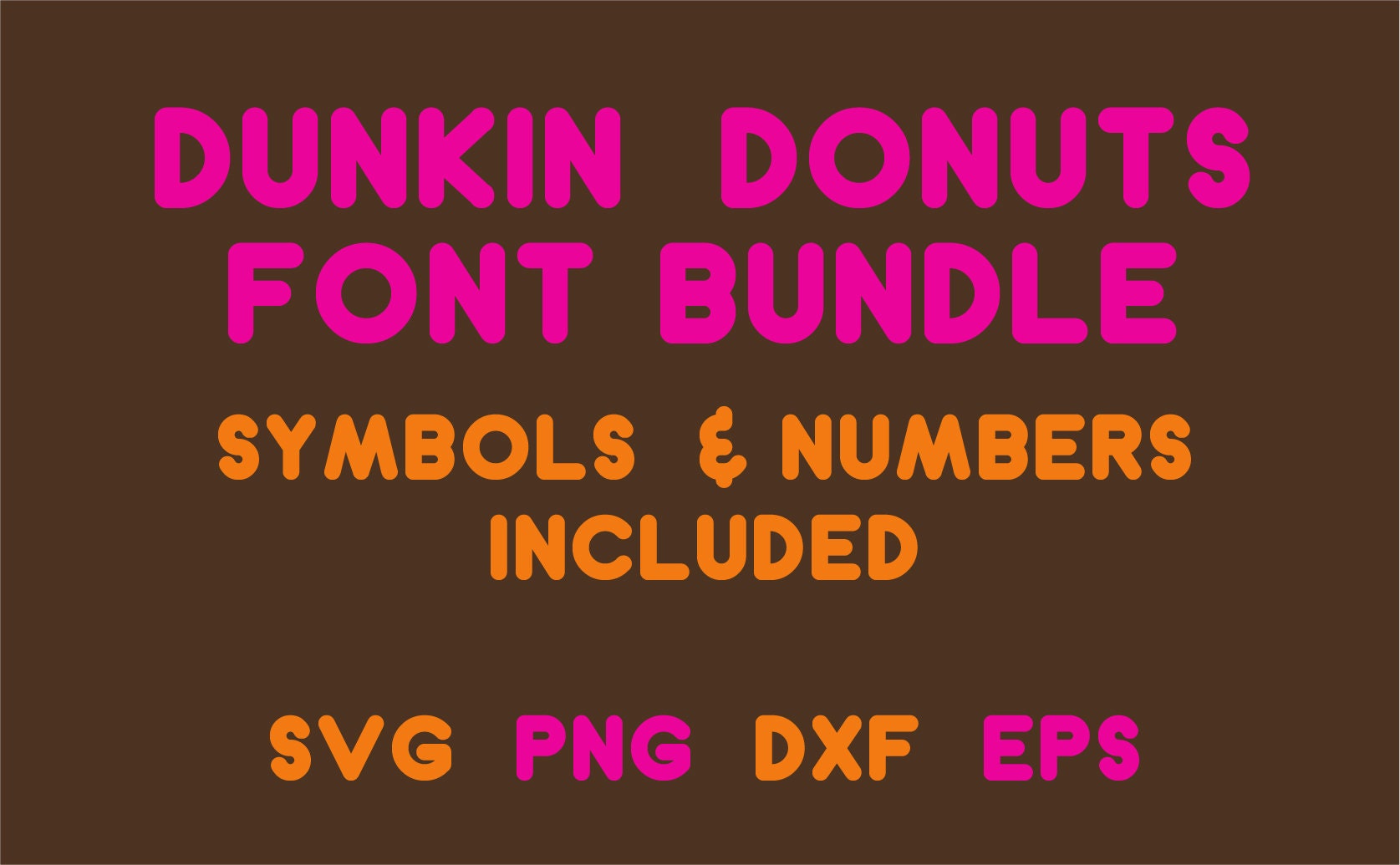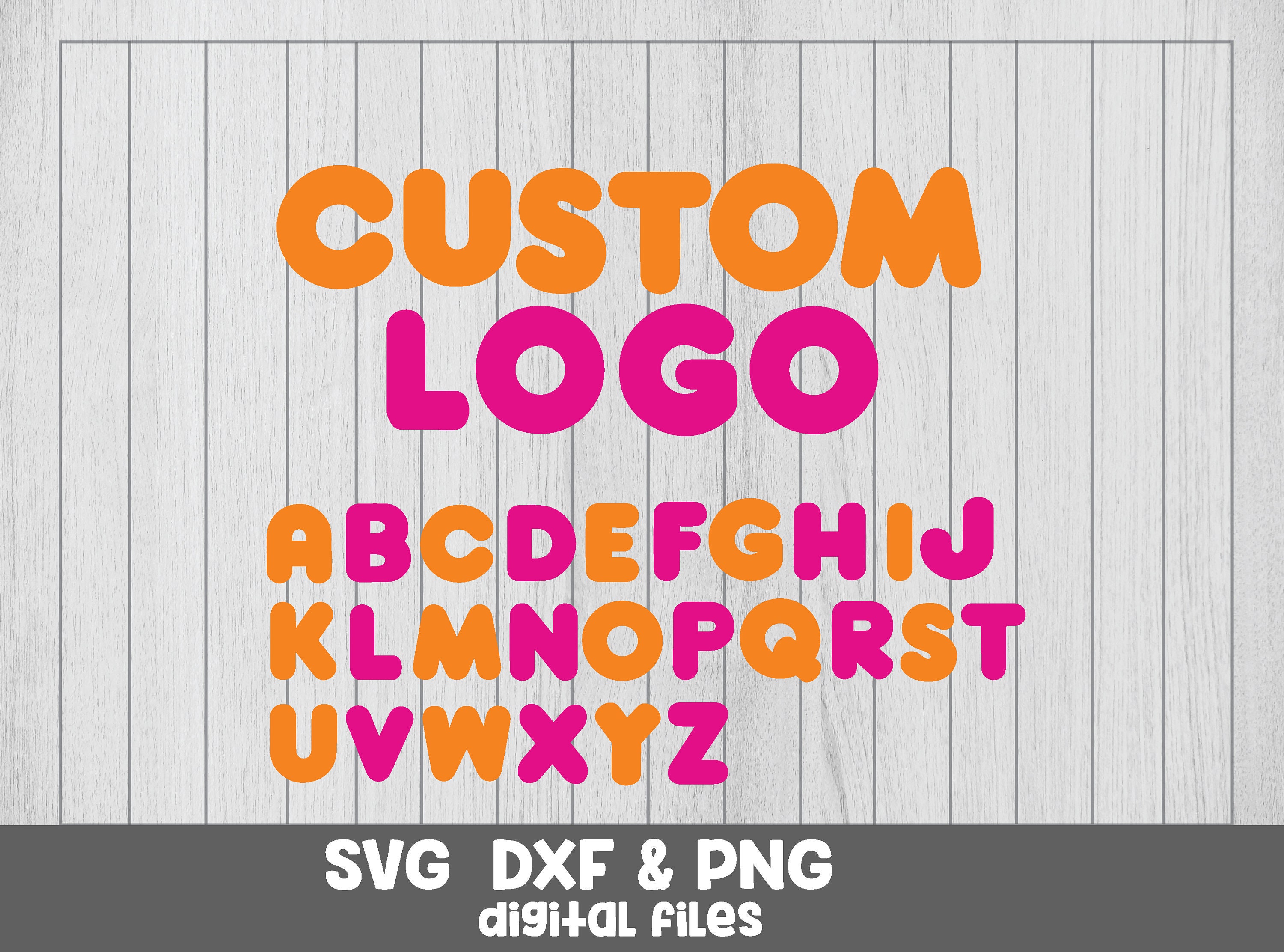
Dunkin Donut Font
Dunkin Donut Font - In 2018, the company dropped the “donuts” from their name. Jkr commissioned colophon “to produce two. Click to find the best 2 free fonts in the dunkin donut style. Web looking for dunkin donut fonts? Web about dunkin font. Every font is free to download! Dunkin is a bold, smooth font based loosely on the popular logo of the “dunkin’ donuts”. Web the dunkin donuts font, used in the iconic logo of the popular donut and coffee chain, is a unique and recognizable typeface that.
Click to find the best 2 free fonts in the dunkin donut style. Dunkin is a bold, smooth font based loosely on the popular logo of the “dunkin’ donuts”. Every font is free to download! Web about dunkin font. Jkr commissioned colophon “to produce two. In 2018, the company dropped the “donuts” from their name. Web looking for dunkin donut fonts? Web the dunkin donuts font, used in the iconic logo of the popular donut and coffee chain, is a unique and recognizable typeface that.
Web about dunkin font. Jkr commissioned colophon “to produce two. Dunkin is a bold, smooth font based loosely on the popular logo of the “dunkin’ donuts”. Web looking for dunkin donut fonts? In 2018, the company dropped the “donuts” from their name. Every font is free to download! Web the dunkin donuts font, used in the iconic logo of the popular donut and coffee chain, is a unique and recognizable typeface that. Click to find the best 2 free fonts in the dunkin donut style.
Click to find the best 2 free fonts in the dunkin donut style. Every font is free to download! Web about dunkin font. In 2018, the company dropped the “donuts” from their name. Web looking for dunkin donut fonts?
Web the dunkin donuts font, used in the iconic logo of the popular donut and coffee chain, is a unique and recognizable typeface that. Every font is free to download! Web about dunkin font. Click to find the best 2 free fonts in the dunkin donut style. In 2018, the company dropped the “donuts” from their name.
Dunkin is a bold, smooth font based loosely on the popular logo of the “dunkin’ donuts”. Every font is free to download! Jkr commissioned colophon “to produce two. Web looking for dunkin donut fonts? In 2018, the company dropped the “donuts” from their name.
Dunkin is a bold, smooth font based loosely on the popular logo of the “dunkin’ donuts”. Every font is free to download! Jkr commissioned colophon “to produce two. Web the dunkin donuts font, used in the iconic logo of the popular donut and coffee chain, is a unique and recognizable typeface that. Web about dunkin font.
Click to find the best 2 free fonts in the dunkin donut style. In 2018, the company dropped the “donuts” from their name. Every font is free to download! Web the dunkin donuts font, used in the iconic logo of the popular donut and coffee chain, is a unique and recognizable typeface that. Dunkin is a bold, smooth font based.
Web the dunkin donuts font, used in the iconic logo of the popular donut and coffee chain, is a unique and recognizable typeface that. Dunkin is a bold, smooth font based loosely on the popular logo of the “dunkin’ donuts”. Click to find the best 2 free fonts in the dunkin donut style. Jkr commissioned colophon “to produce two. In.
Jkr commissioned colophon “to produce two. Web looking for dunkin donut fonts? Click to find the best 2 free fonts in the dunkin donut style. Web about dunkin font. Every font is free to download!
In 2018, the company dropped the “donuts” from their name. Click to find the best 2 free fonts in the dunkin donut style. Web looking for dunkin donut fonts? Dunkin is a bold, smooth font based loosely on the popular logo of the “dunkin’ donuts”. Web about dunkin font.
Every font is free to download! Web looking for dunkin donut fonts? Web about dunkin font. Jkr commissioned colophon “to produce two. Dunkin is a bold, smooth font based loosely on the popular logo of the “dunkin’ donuts”.
Every font is free to download! Web looking for dunkin donut fonts? Web the dunkin donuts font, used in the iconic logo of the popular donut and coffee chain, is a unique and recognizable typeface that. Web about dunkin font. In 2018, the company dropped the “donuts” from their name.
In 2018, The Company Dropped The “Donuts” From Their Name.
Every font is free to download! Jkr commissioned colophon “to produce two. Click to find the best 2 free fonts in the dunkin donut style. Dunkin is a bold, smooth font based loosely on the popular logo of the “dunkin’ donuts”.
Web About Dunkin Font.
Web looking for dunkin donut fonts? Web the dunkin donuts font, used in the iconic logo of the popular donut and coffee chain, is a unique and recognizable typeface that.